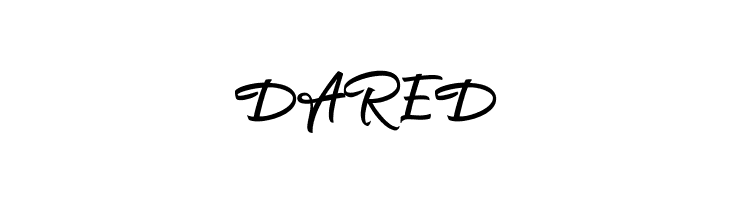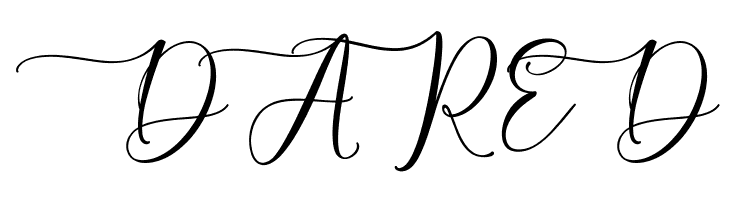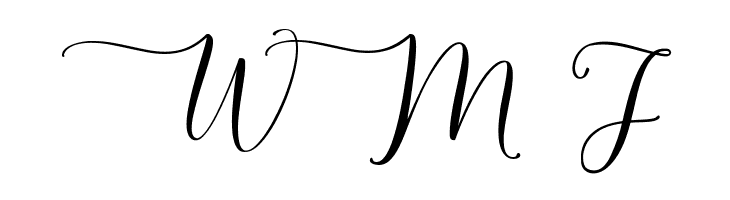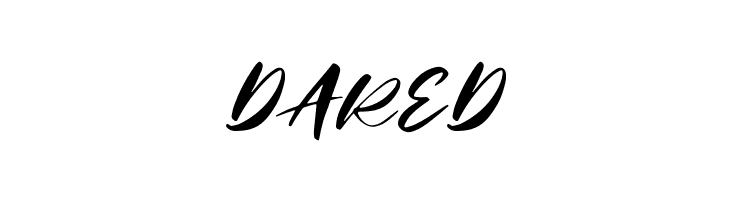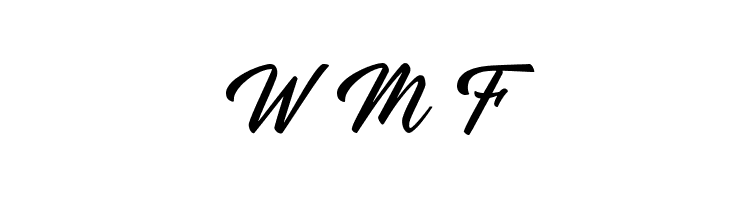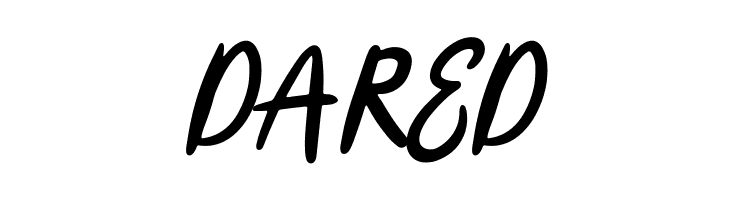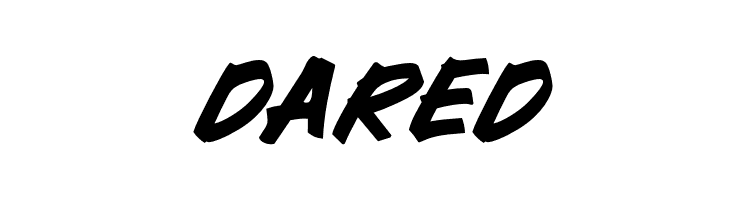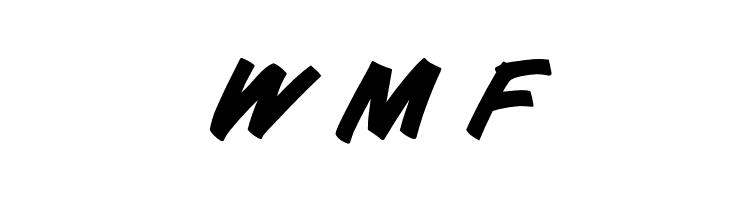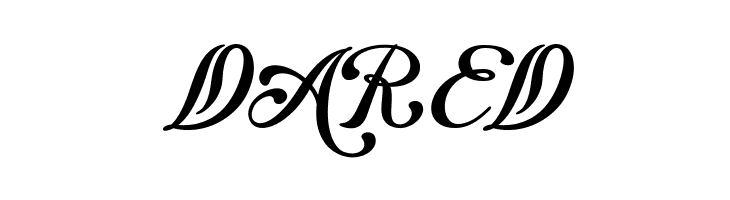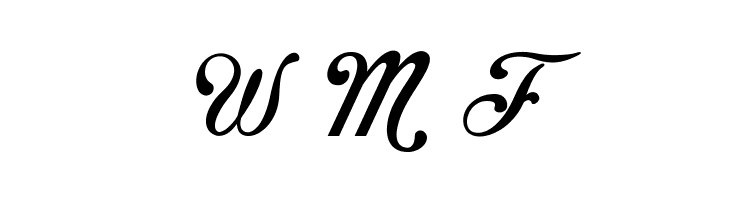
An elegant, cursive script font with a flowing, handwritten style.
An elegant script font with flowing, cursive letterforms and delicate swashes.
A flowing, elegant script font with a handwritten style.
A graceful script font with fluid, connected strokes and elegant style.
An elegant and flowing script font with ornate, decorative letterforms.
An elegant, high-contrast cursive script with ornate swashes and flourishes.
A bold, lively script font with fluid, natural handwriting style.
A bold, dynamic script font with brush-like strokes and a cursive slant.
A flowing, cursive script font with elegant, connected strokes.